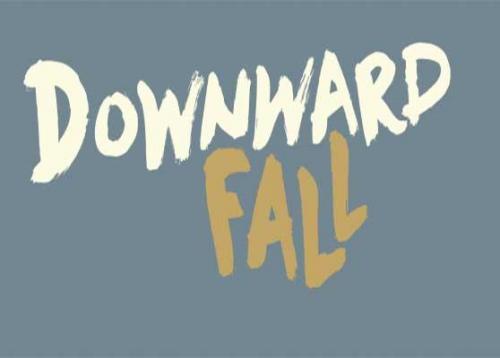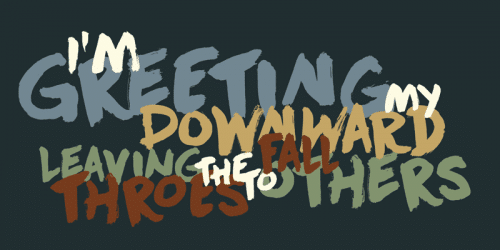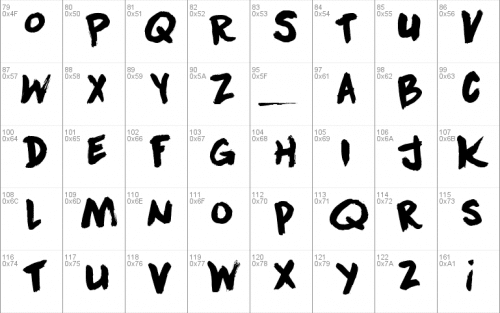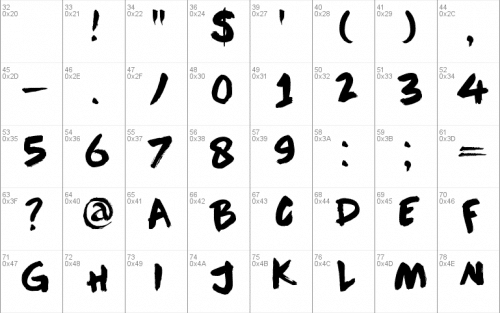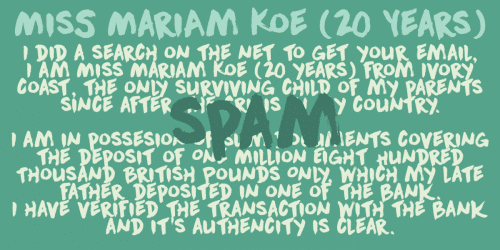
Downward Fall owes its name to one of my favorite Opeth songs, called The Funeral Portrait. The song itself is an uptempo metal composition with rather dark lyrics. This peculiar combination, a mix of good and evil if you will, is what characterizes Downward Fall font: the brushwork is quick, giving the impression of speed. The undertone is darker, scarier – lots of jaggedness and decay.
Downward Fall font comes with a 20.000 foot drop of diacritics.